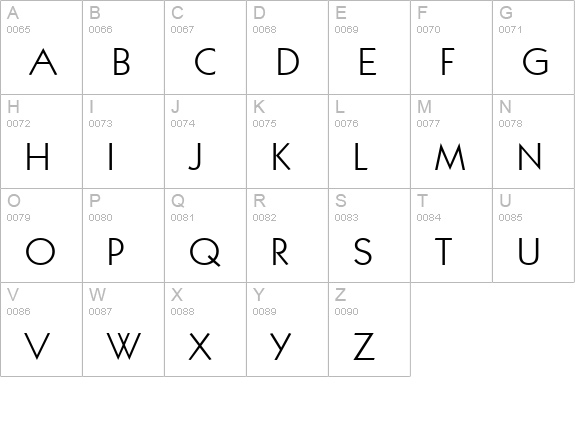
Kabel Book BT Font Details
Kabel Book BT is a comfortable, highly readable variant in the Kabel typeface family \xE2\x80\x94 well suited to long-form body text, articles, and editorial content.
Kabel Book BT is a timeless font that exudes elegance and sophistication. With its bold yet refined letterforms, this font is perfect for conveying a sense of professionalism and class. Its clean lines and balanced proportions make it versatile and suitable for a wide range of design projects. Whether used in print or digital media, Kabel Book BT effortlessly captures attention and commands respect. Its readability and legibility ensure that your message is communicated with clarity and impact. But what sets Kabel Book BT apart is that it is not only a remarkable font, but it is also free! Yes, you read that right. This incredible font is freely available to download at FontsMarket.com. Now you can enhance your designs without breaking the bank. So why wait? Don't miss out on the opportunity to elevate your design projects with Kabel Book BT. Download it for free today at FontsMarket.com and experience the beauty and versatility of this exceptional font.